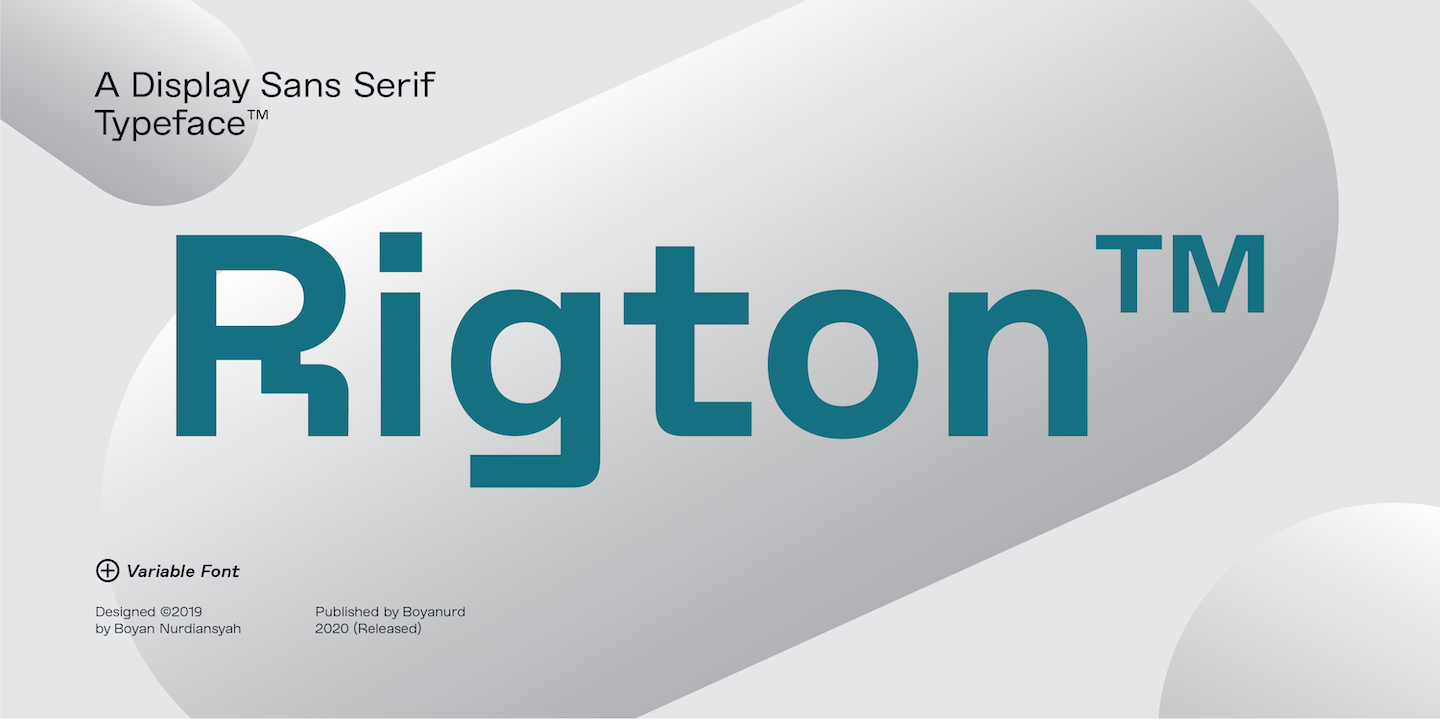
The Rigton Font is perfect for various design applications including corporate branding projects, professional business logos, financial services marketing, legal firm signage, executive consulting materials, institutional presentations, formal documentation designs, and authoritative publication graphics. This commanding typeface works exceptionally well for established businesses and projects requiring strong professional presence with institutional credibility appeal.
What makes Rigton Font exciting is its authoritative and commanding character that instantly establishes credibility and conveys professional excellence with institutional strength. The font features robust letterforms with corporate precision and authoritative aesthetics that evoke feelings of trust, reliability, and established expertise. Its commanding styling and institutional appearance make it perfect for brands that want to project authority and connect with clients seeking proven professional competence and reliable business partnerships.
The Rigton Font family includes multiple weights and styles, offering designers flexibility for diverse corporate applications. The family typically consists of regular, bold, medium, and condensed variations, along with professional decorative elements and corporate ornaments, providing comprehensive coverage for projects that need both authority and visual impact across different business contexts.
Whether you're working on corporate identity systems, professional service firms, or institutional marketing campaigns, Rigton Font Free Download delivers the authoritative quality and visual strength that modern business designers demand. The font's institutional-inspired design combined with its excellent readability makes it an essential tool for creating compelling visual communications that embody professional excellence and establish the commanding presence of trusted business authority.